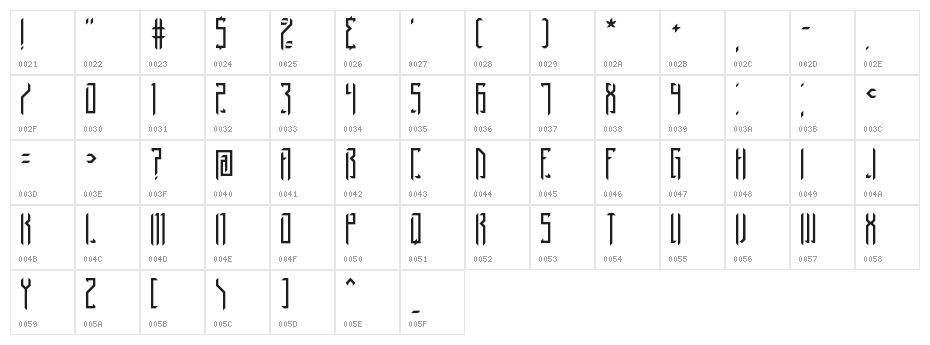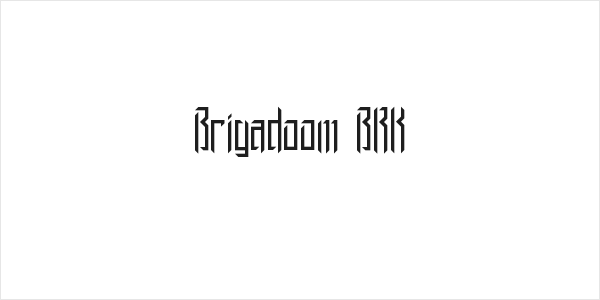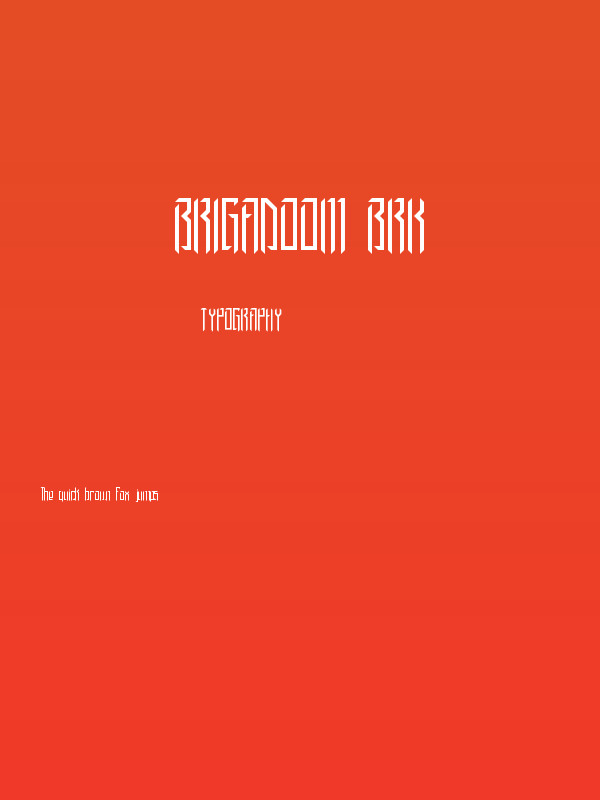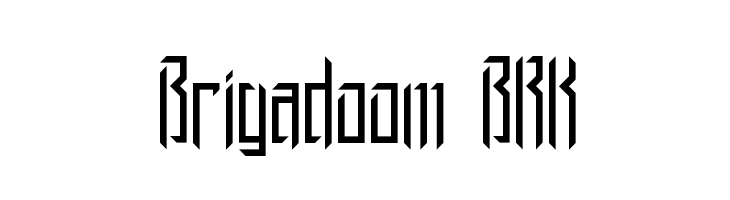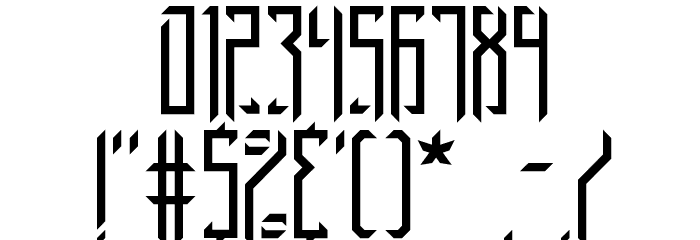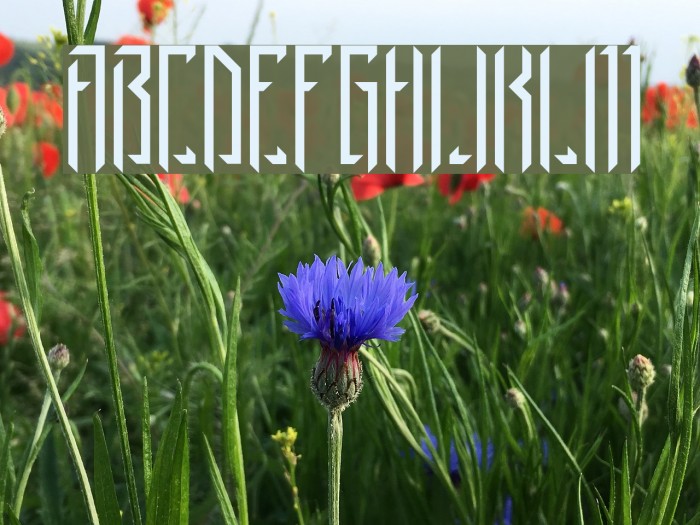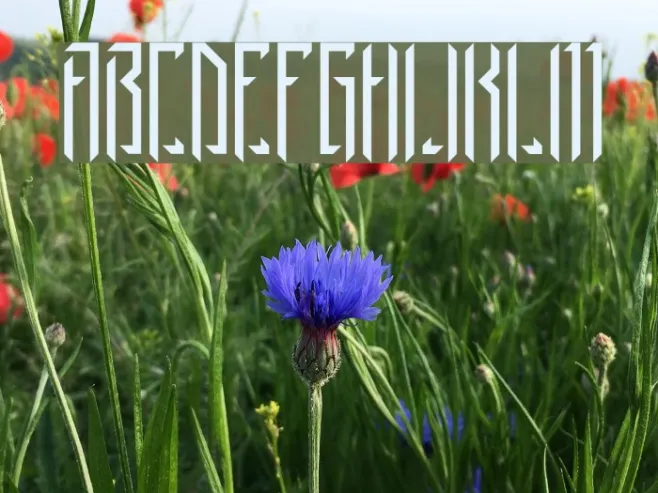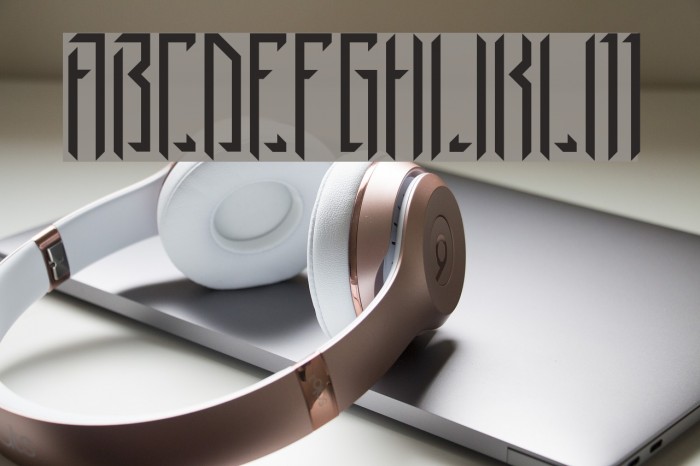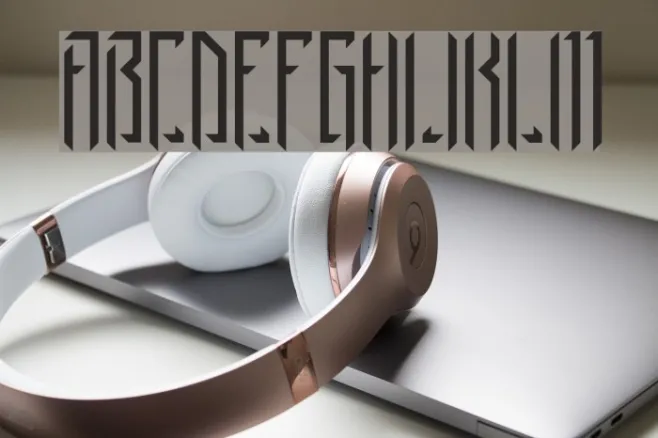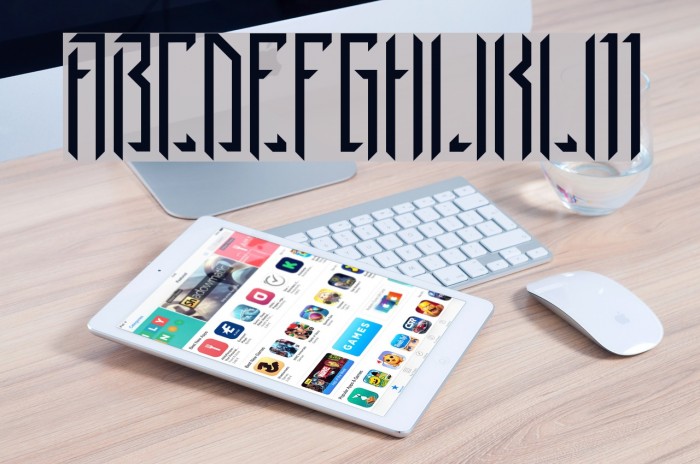
Brigadoom BRK Font
Brigadoom BRK Description
This font features a bold, angular design with a distinct geometric style. The characters are tall and narrow, with sharp edges and a futuristic appearance. The uppercase and lowercase letters maintain a consistent height, creating a uniform look. The numbers and special characters follow the same angular theme, enhancing the overall cohesive design. This font's unique style makes it stand out, suitable for projects that require a modern and edgy aesthetic.
| Proposed Projects | Ideal for sci-fi themed designs, modern posters, video game graphics, and branding that requires a distinctive edge. |